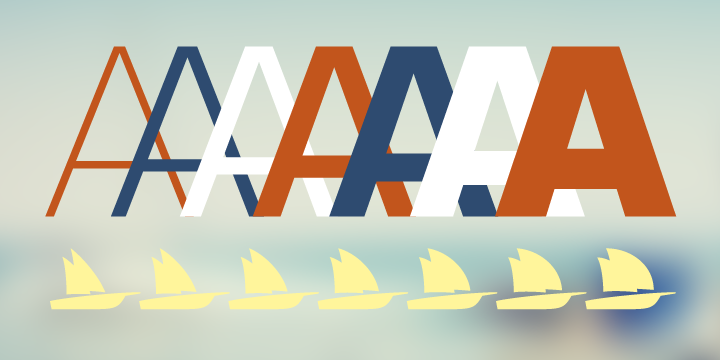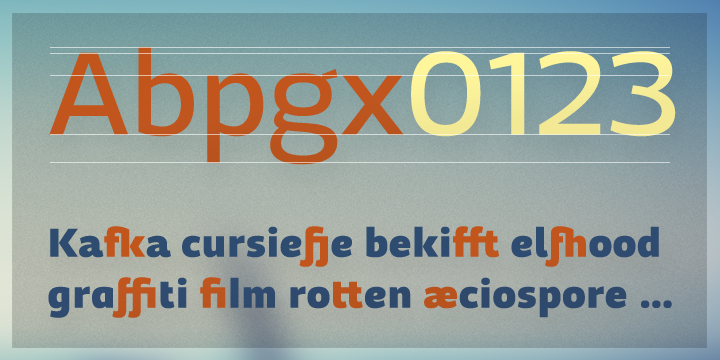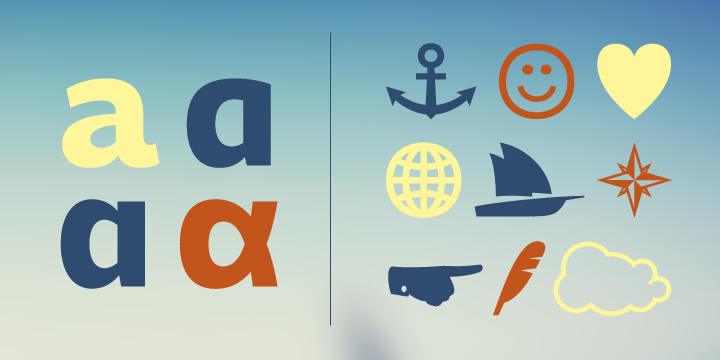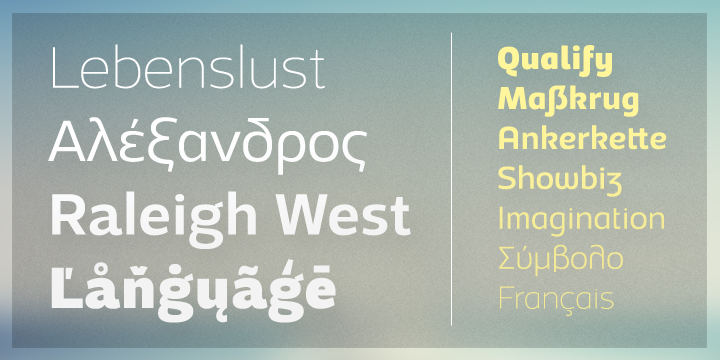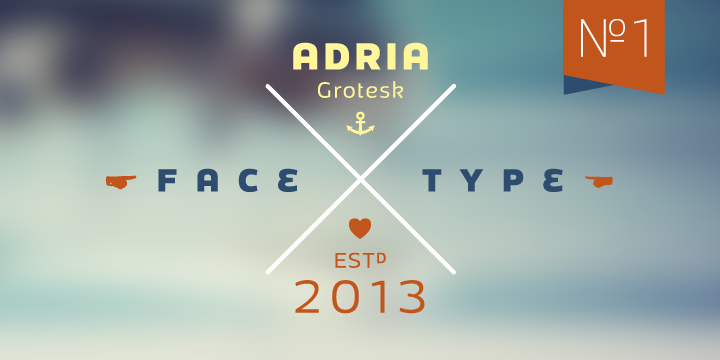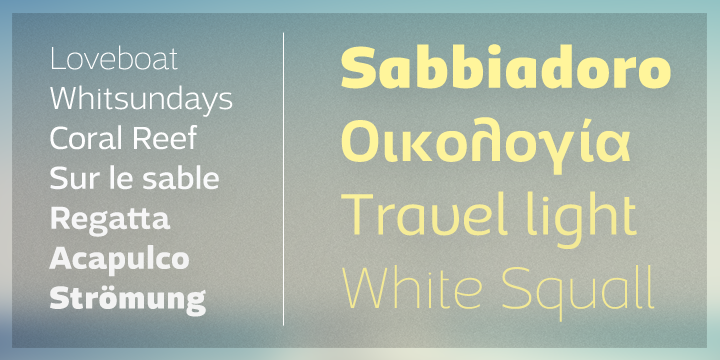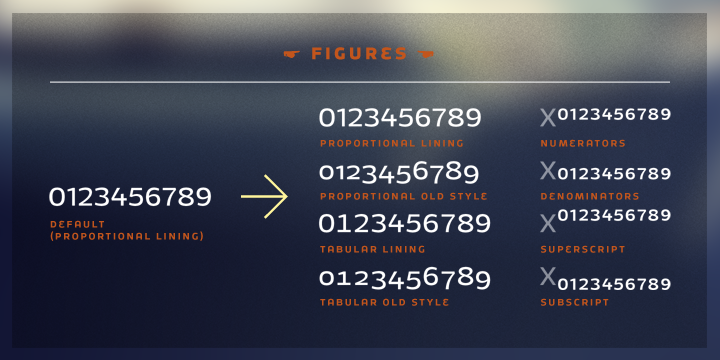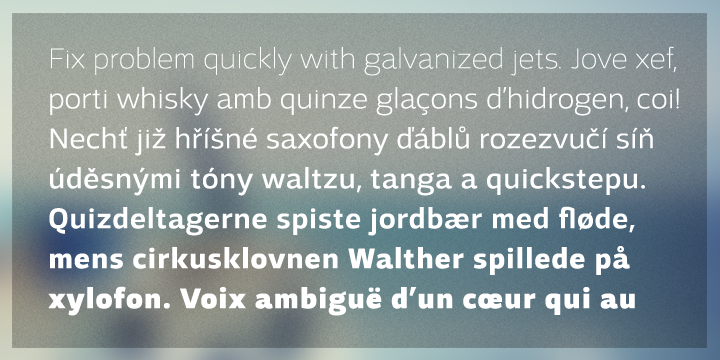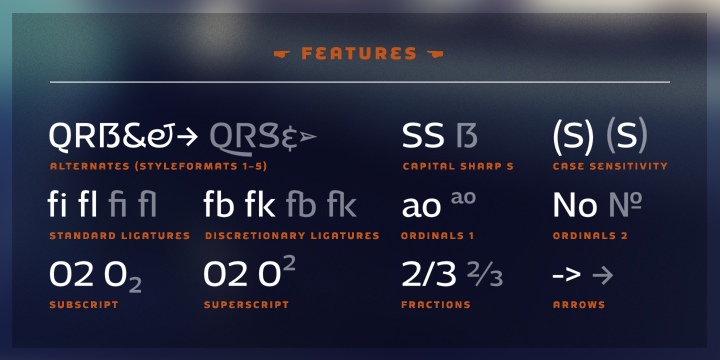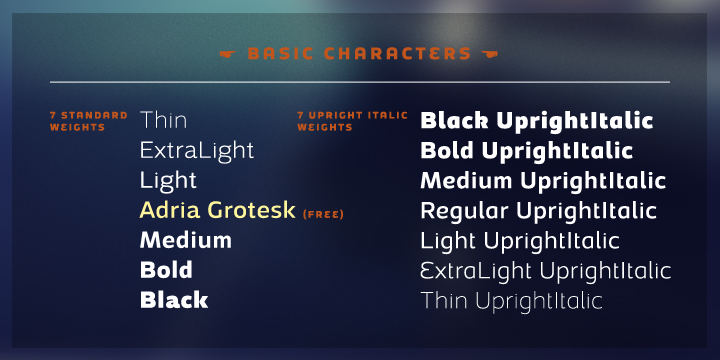
Adria Grotesk is a sans serif font family. This typeface has fourteen styles and was published by FaceType.
Adria Grotesk is a superfriendly and sunny humanist typeface that comes in 7 carefully crafted weights and charming upright italics. You will find a fine choice of lining, tabular and old style figures, numerators, denominators, tabular figures, fractions, ligatures, some sweet symbols and even alternate arrows. It was designed by Marcus Sterz.